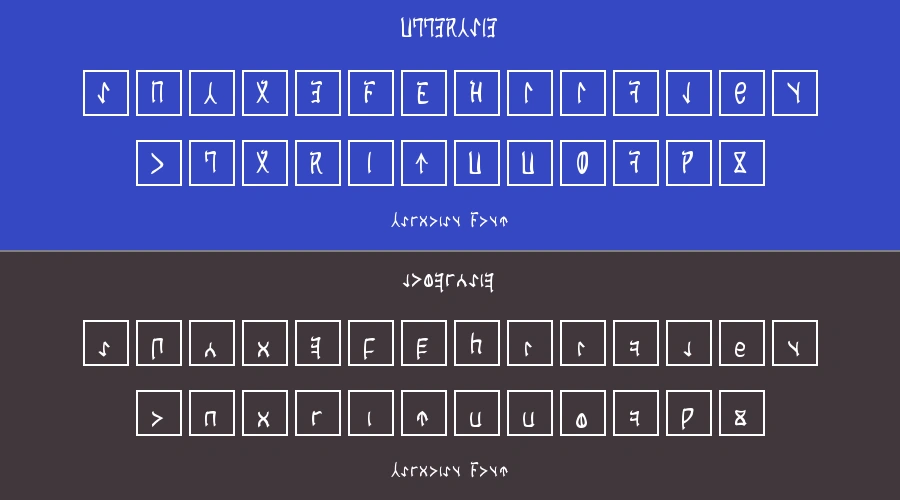
About Cardosan Font
Cardosan Font embodies typographic excellence through its masterful combination of wedge serifs and sophistication. Created for literary works, this typeface delivers exceptional tradition and brand differentiation across all applications. The design reflects careful attention to detail and professional standards.
Advanced capabilities include distinctive rounded apexes and versatile discretionary ligatures, giving designers creative control. When used in creative titles, Cardosan Font exhibits remarkable file optimization. The harmonious balance between terminal style and market positioning sets this typeface apart.